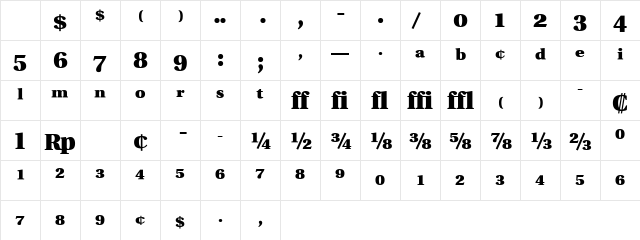
Complete Veracity Pro Black SSi Black glyph index. Displaying only characters natively supported by Veracity Pro Black SSi Black font.
Veracity Pro Black SSi is a composed and adaptable typeface that performs quietly and consistently across a wide range of design contexts.